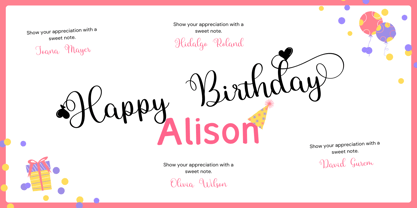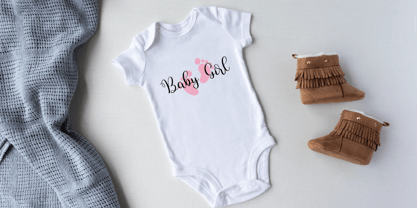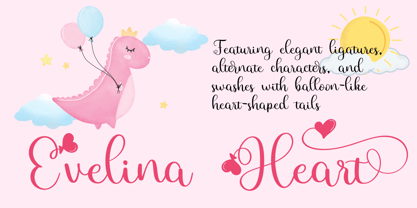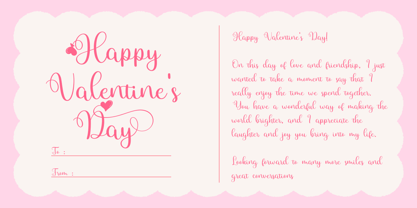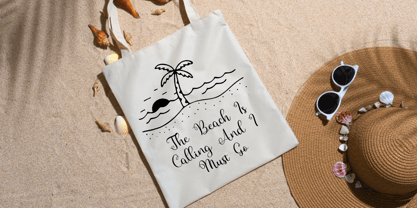
Evelina Heart
by Beary
The Evelina Heart Font Family was designed by Dian Haniffan Hadi and published by Beary. Evelina Heart contains 1 styles. More about this family
This font is a graceful and flowing handwritten typeface that exudes elegance and charm. What sets it apart is its unique heart-shaped alternates and carefully crafted ligatures, adding a romantic and artistic touch to every design.
Each letter is thoughtfully designed with a subtle swirl, creating a modern yet timeless look that effortlessly enhances your projects. Whether you're designing wedding invitations, branding materials, or social media posts, this font will elevate your work with its sophisticated and distinctive style.
Bring your creative ideas to life with this delightful typeface and watch how it transforms your designs into something truly unforgettable!